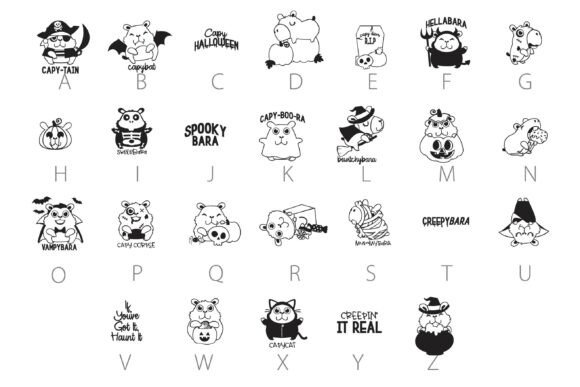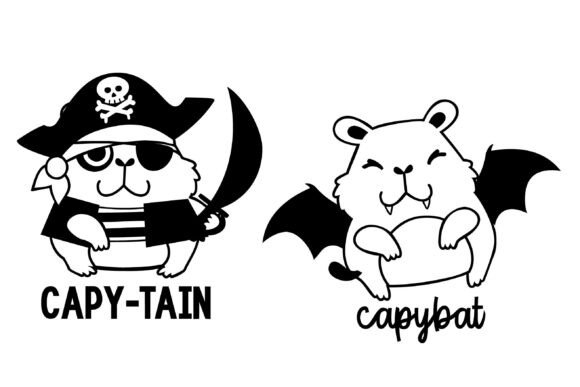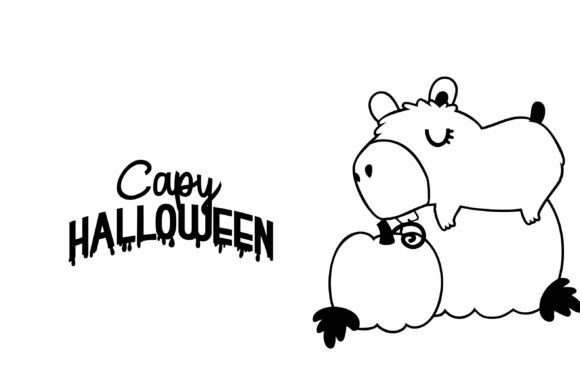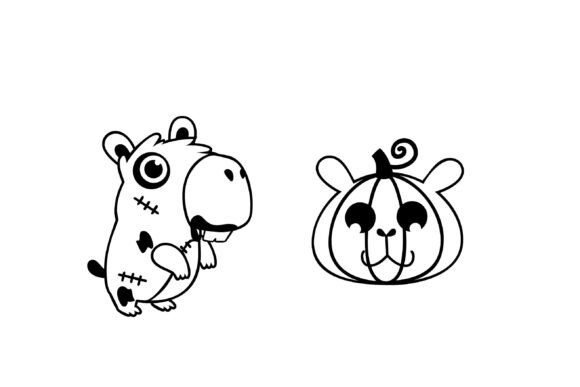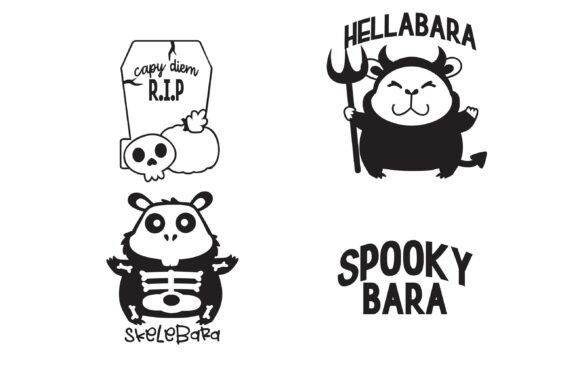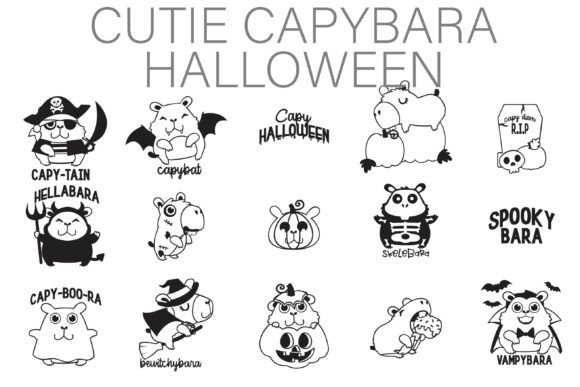
Unleash the Spookiness with Cutie Capybara Halloween Dingbats Font
As the spookiest time of the year approaches, designers and crafters are on the lookout for the perfect elements to make their Halloween-themed projects stand out. Look no further than the Cutie Capybara Halloween dingbats font, a terrifyingly cute collection of holiday-themed animal dingbats that is sure to summon the spooky vibes.
Meet the Cutie Capybara Halloween Mascot Set
The Cutie Capybara Halloween mascot set features our favorite capybara mascot dressed in a variety of iconic costumes, each one more adorable and spooky than the last. The set includes:
- Vampybara: A vampire-costumed capybara with fangs and a cape, perfect for adding a touch of darkness to your designs.
- SkeleBara: A skeletal capybara with a spooky grin, ideal for creating hauntingly beautiful designs.
- Bewitchybara: A capybara on a broomstick, adding a touch of magic to your Halloween-themed projects.
Each of these characters is designed to bring a smile to your face while still capturing the essence of the spooky season.
Perfect for Seasonal Event Branding and Design
The Cutie Capybara Halloween dingbats font is the premier choice for seasonal event branding, offering a unique and playful way to create eye-catching designs. Whether you’re working on:
- Halloween party invitations and decorations
- Boutique holiday packaging for treats and gifts
- Independent sticker design for trick-or-treaters and party favors
- Social media headers to spookify your online presence
This mascot set has everything you need to create designs that are both cute and spooky.
Key Features of Cutie Capybara Halloween Dingbats Font
- Haunted-forest soul: Each character is infused with a playful, spooky vibe that’s perfect for the Halloween season.
- Pun-filled catchphrases: Add a touch of humor to your designs with clever phrases that match the playful tone of the mascot set.
- Versatile design: Use the dingbats font to create a wide range of designs, from simple stickers to elaborate party decorations.
Why Choose Cutie Capybara Halloween Dingbats Font?
With so many Halloween-themed designs available, what sets Cutie Capybara Halloween apart?
- Unique characters: The capybara mascot is a refreshing change from traditional Halloween characters like bats, ghosts, and jack-o’-lanterns.
- Cute and spooky: The designs strike the perfect balance between adorable and spooky, making them suitable for a wide range of audiences.
- Ease of use: The dingbats font is easy to incorporate into your designs, making it perfect for designers and crafters of all skill levels.
Get Ready to Spookify Your Designs